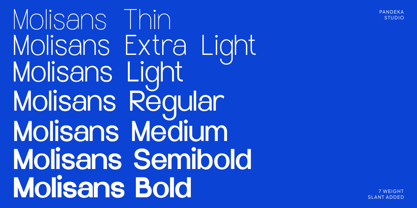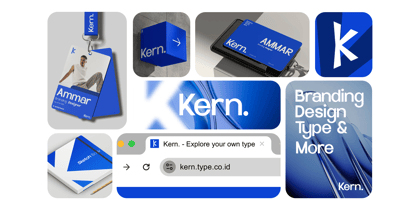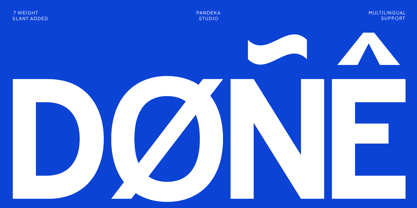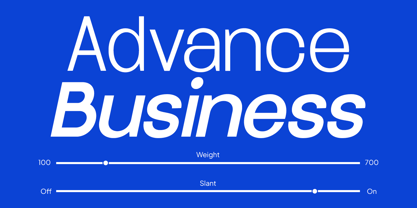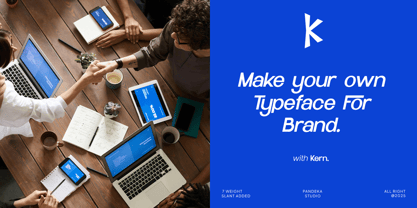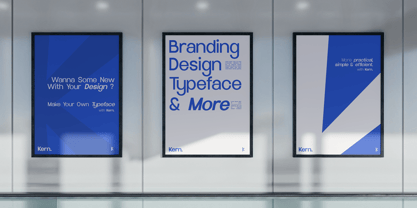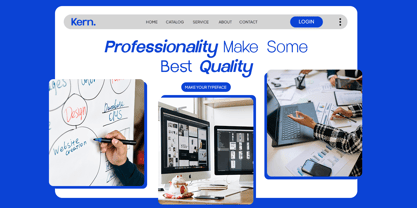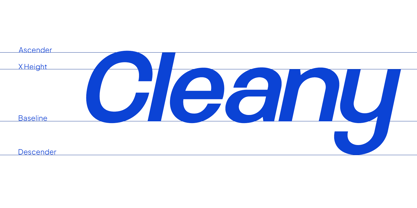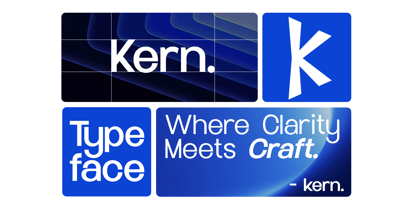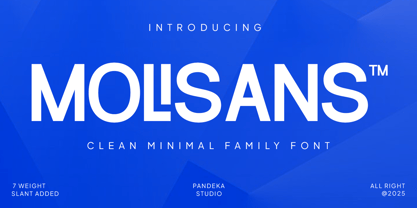
Molisans
by Pandeka Studio
The Molisans Font Family was designed by Sagara Nararya and published by Pandeka Studio. Molisans contains 14 styles and family package options. More about this family
Molisans is a clean and modern sans serif family designed with geometric precision and minimalist style. Ideal for branding, corporate design, digital interfaces, and editorial layouts — Molisans delivers clarity, structure, and timeless professionalism in every weight. Its smooth and balanced letterforms create a confident visual tone for both display and text use.
This font includes 14 styles — from Thin to Bold with matching Slanted versions — and comes with a Variable Font for flexible weight and slant customization. Featuring 24+ elegant ligatures, multilingual support, numerals, and punctuation, Molisans is built to adapt perfectly across digital and print platforms, offering both versatility and refinement in modern design.
• 14 Styles: 7 Weights + 7 Matching Slants: Thin, Thin Slanted, Extra Light, Extra Light Slanted, Light, Light Slanted, Regular, Slanted, Medium, Medium Slanted, Semi Bold Slanted, Bold, Bold Slanted
• Full Character Set: Uppercase, lowercase, numbers, symbols, and punctuation
• 24+ Ligature